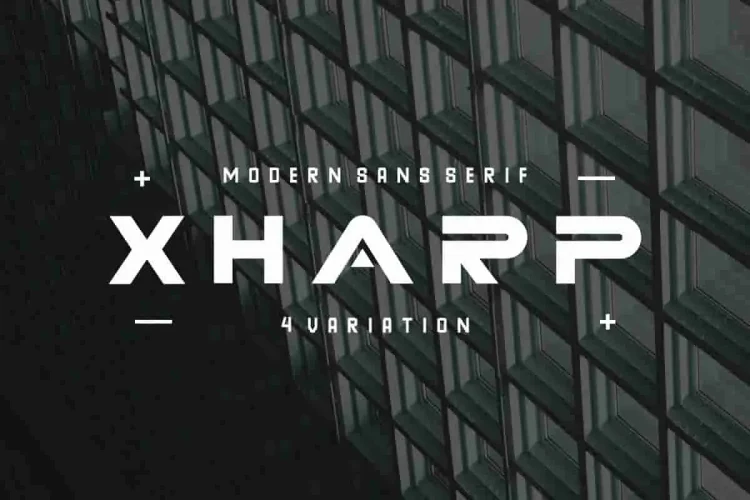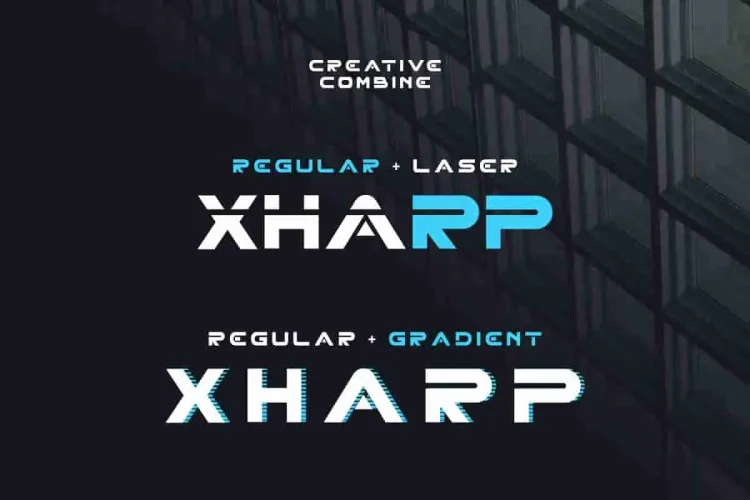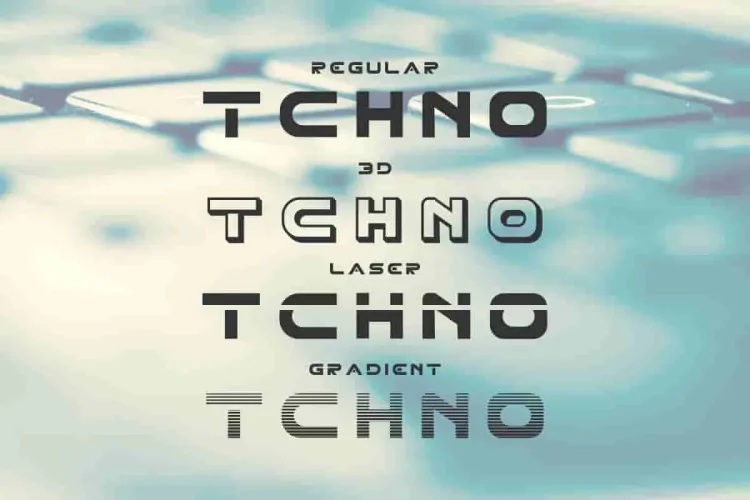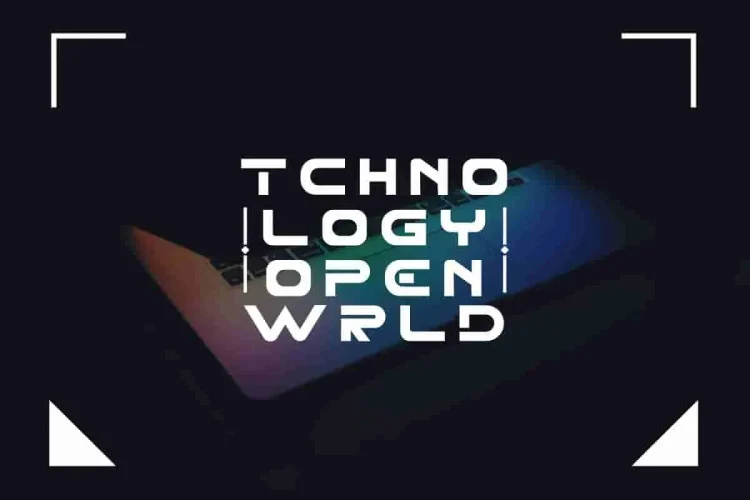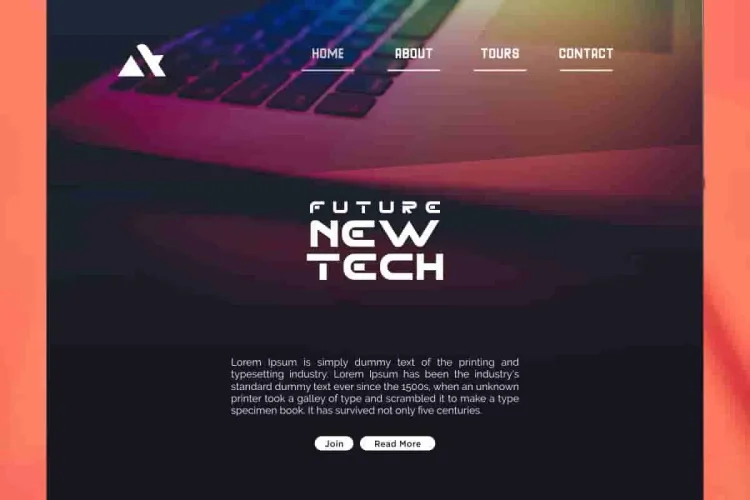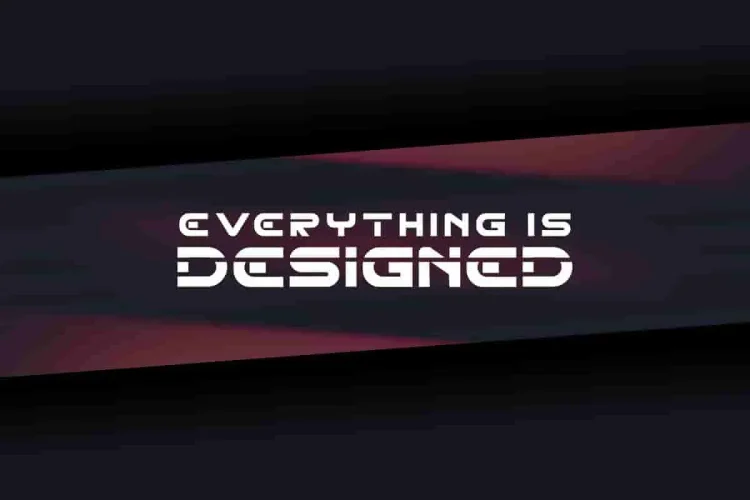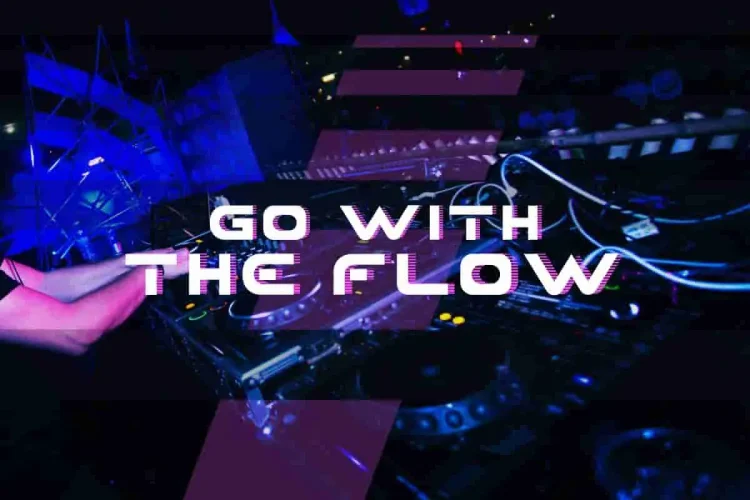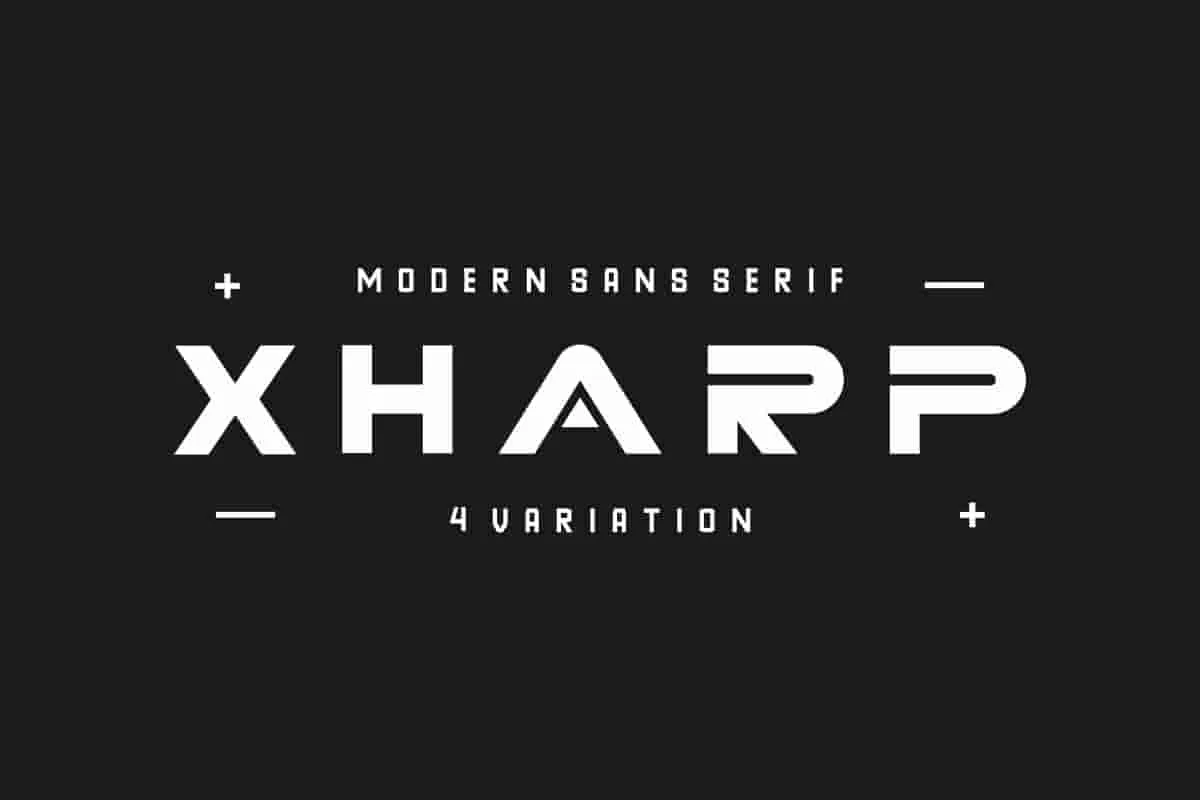
XHARP Futuristic Modern Font
Hi Everyone! Introducing our newest font : XHARP Futuristic Modern Font.
Step into the future of design with XHARP, a futuristic sans serif display font crafted for bold innovation and cutting-edge creativity. Whether you’re designing for tech brands, esports teams, sci-fi posters, or digital products, XHARP gives your project a sleek, powerful, and dynamic edge.
🖋 XHARP comes with FOUR high-impact styles:
• Regular: Clean and modern, perfect for tech-heavy branding and futuristic interfaces.
• 3D: Adds dimensional depth and a bold presence to your headlines.
• Laser: Inspired by sharp beams and digital cuts, great for cyberpunk or tech themes.
• Gradient: A striped, flowing style that brings movement and energy to any display.
This is a new modern Futuristic font, a family of Sans Serif Typefaces. It will be Great for branding, logo, stationery, business card, signage, flyer, brochure etc. There are many industries that is suitable for this font : technology, creative, studio, media, marketing etc.
XHARP isn’t just an ordinary font  it’s a creative solution for designs that want to stand out with a futuristic edge.
• Futuristic Look – Instantly adds a modern, high-tech vibe to your project.
• Bold & Attention-Grabbing – Each letter is designed to make a strong, confident impact.
• Multiple Style Options – Comes in Regular, 3D, Laser, and Gradient for creative flexibility.
• Perfect for Tech & Sci-Fi Themes – Ideal for games, apps, branding, digital posters, and more.
• Freely Mix & Match – Combine styles like Regular + Laser or Regular + Gradient for unique effects.
• Powerful Display Typeface – Sharp lines and futuristic forms deliver a sleek and professional look.
• High-Quality Design – Crafted with precision for clean, modern aesthetics.
• Stand Out from the Crowd – It’s time to ditch boring fonts and make your design pop.